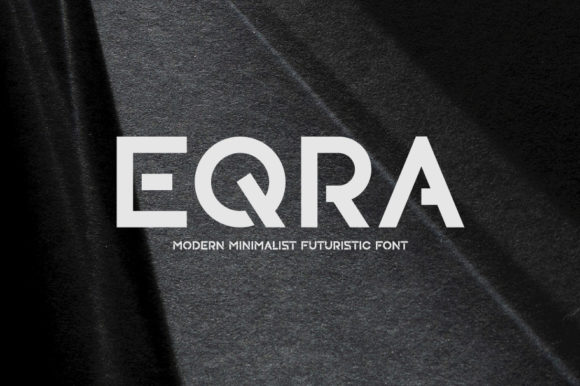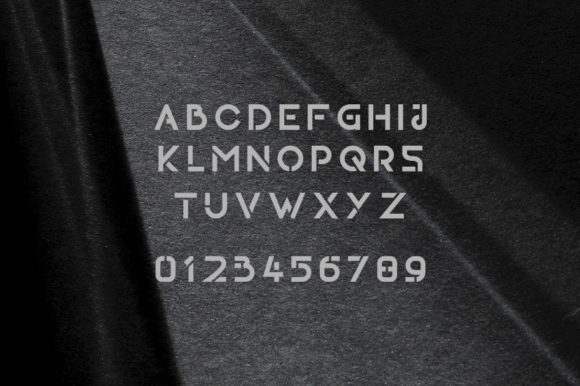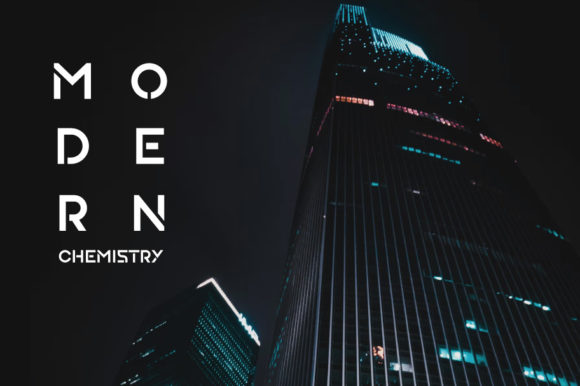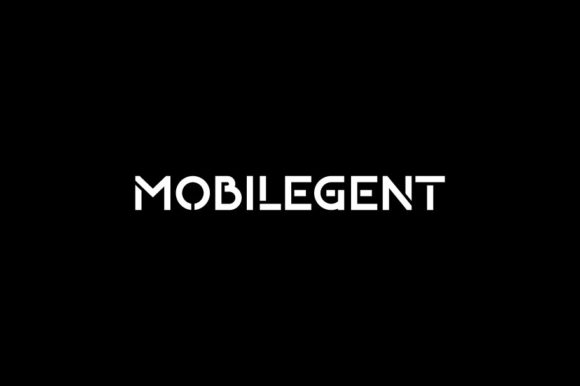
Eqra Font: Modern Minimalist Sans Serif for Logo Design & Futuristic Projects
About the Eqra Font
Step up your design game with Eqra Font, a font that exudes confidence and style. Eqra is a modern and minimalist sans serif font with clean edges and a very tidy appearance. It’s a wonderful font for urban crafts, futuristic designs, and other cool creative projects!
Eqra’s clean lines and geometric precision make it ideal for headlines, logos, and short-form text in branding materials and posters. Its minimalist nature lends itself well to contemporary projects requiring a sleek, modern aesthetic. However, its thin strokes might compromise readability in body text or UI elements requiring extensive amounts of text.
Its cool, controlled personality pairs well with warmer, more organic fonts. Consider pairing Eqra with a classic serif like Garamond for a sophisticated contrast, or a playful script like Allura for a touch of elegance. A geometric sans-serif such as Futura could also create a cohesive, modern feel.
Eqra projects a bold yet refined image, perfect for brands aiming for a sophisticated and minimalist brand identity. Avoid using it in contexts demanding high readability over extended lengths.
Eqra Font Usage Examples
Eqra Font Example